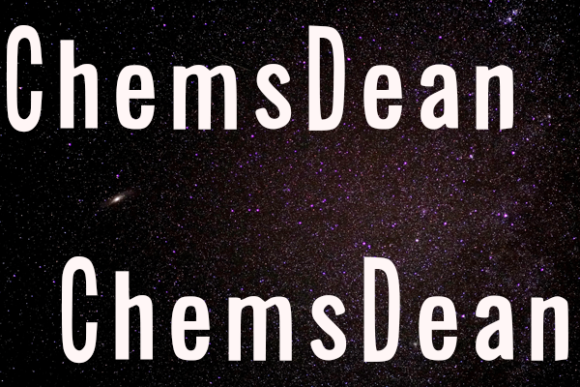
Introducing Chems Dean Font: A Simple yet Bold Sans Serif Typeface
Are you a designer or crafter looking for a font that can elevate your visual projects? Look no further than Chems Dean Font, a simple and bold sans serif typeface that’s perfect for a wide range of applications. In this article, we’ll dive into the features and benefits of Chems Dean Font, and explore how it can be used to take your designs to the next level.
What is Chems Dean Font?
Chems Dean Font is a modern sans serif font that’s designed to be both beautiful and professional. Its clean lines, simple shapes, and bold strokes make it a versatile typeface that can be used in a variety of contexts. Whether you’re creating a film poster, headline, block letters, subheadings, or logo designs, Chems Dean Font is an excellent choice.
Key Features of Chems Dean Font
So, what makes Chems Dean Font so special? Here are some of its key features:
- Simple and Bold Design: Chems Dean Font has a simple yet bold design that makes it perfect for headlines, titles, and other attention-grabbing applications.
- Sans Serif Style: The font features a sans serif style that’s clean and modern, making it ideal for digital and print designs.
- Highly Versatile: Chems Dean Font can be used in a wide range of applications, from film posters and logo designs to subheadings and block letters.
- Professional Look and Feel: The font has a professional look and feel that’s perfect for businesses, organizations, and individuals looking to create a strong visual identity.
Use Cases for Chems Dean Font
So, how can you use Chems Dean Font in your designs? Here are some use cases to consider:
- Film Posters: Chems Dean Font is perfect for creating eye-catching film posters that grab attention and convey important information.
- Headlines and Titles: The font’s bold design makes it ideal for headlines and titles that need to stand out.
- Logo Designs: Chems Dean Font can be used to create professional-looking logo designs that reflect a brand’s values and personality.
- Subheadings and Block Letters: The font’s clean lines and simple shapes make it perfect for subheadings and block letters that need to be easy to read.
Benefits of Using Chems Dean Font
So, why should you choose Chems Dean Font for your designs? Here are some benefits to consider:
- Improved Readability: Chems Dean Font is designed to be easy to read, even at small sizes.
- Enhanced Visual Appeal: The font’s bold design and clean lines make it visually appealing and engaging.
- Increased Versatility: Chems Dean Font can be used in a wide range of applications, making it a great addition to any designer’s toolkit.
- Professional Look and Feel: The font’s professional look and feel can help businesses and organizations establish a strong visual identity.
In conclusion, Chems Dean Font is a simple yet bold sans serif typeface that’s perfect for designers and crafters looking to elevate their visual projects. With its clean lines, simple shapes, and bold strokes, this font is highly versatile and can be used in a wide range of applications. Whether you’re creating film posters, headlines, block letters, subheadings, or logo designs, Chems Dean Font is an excellent choice. So why not give it a try and see how it can take your designs to the next level?